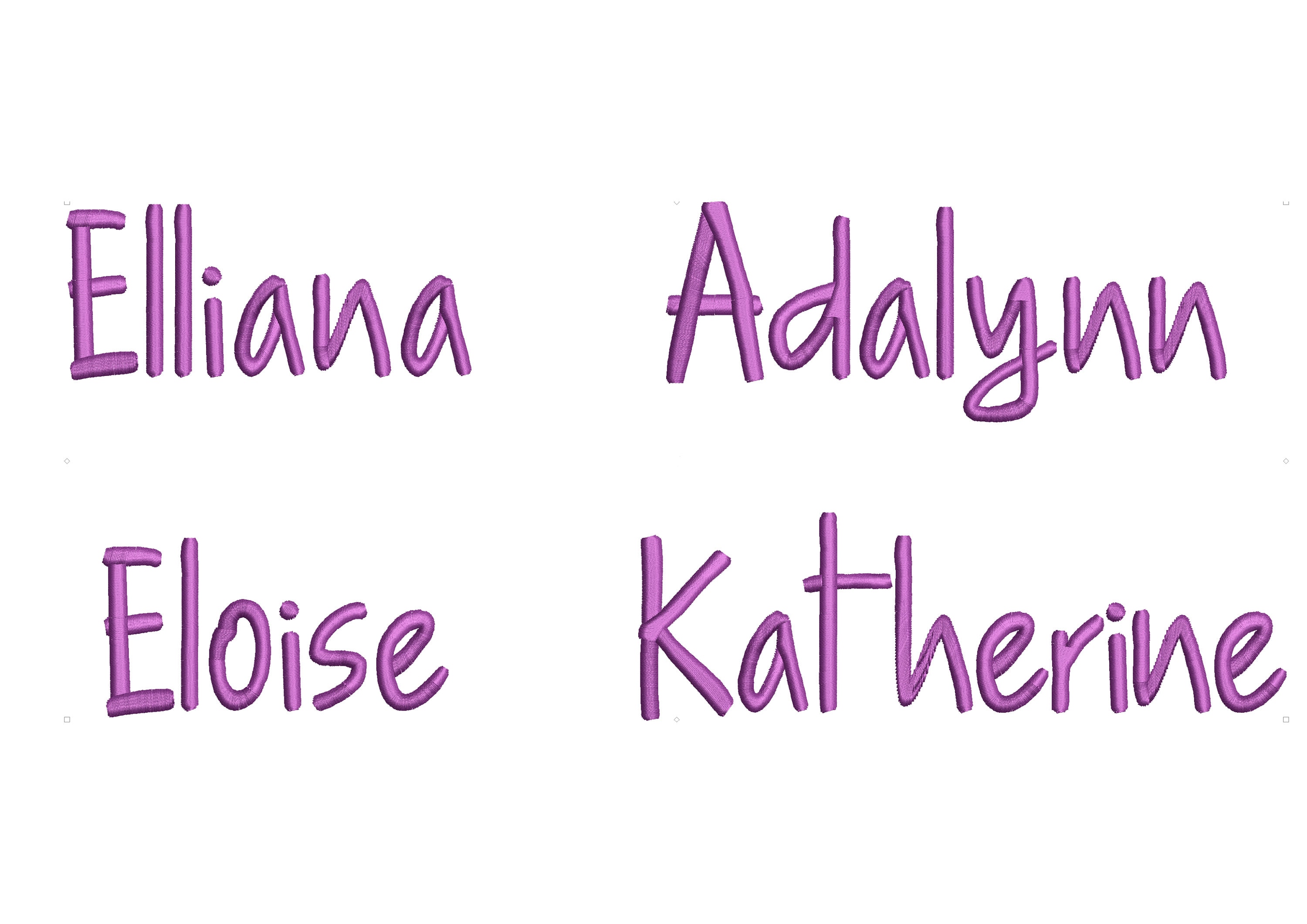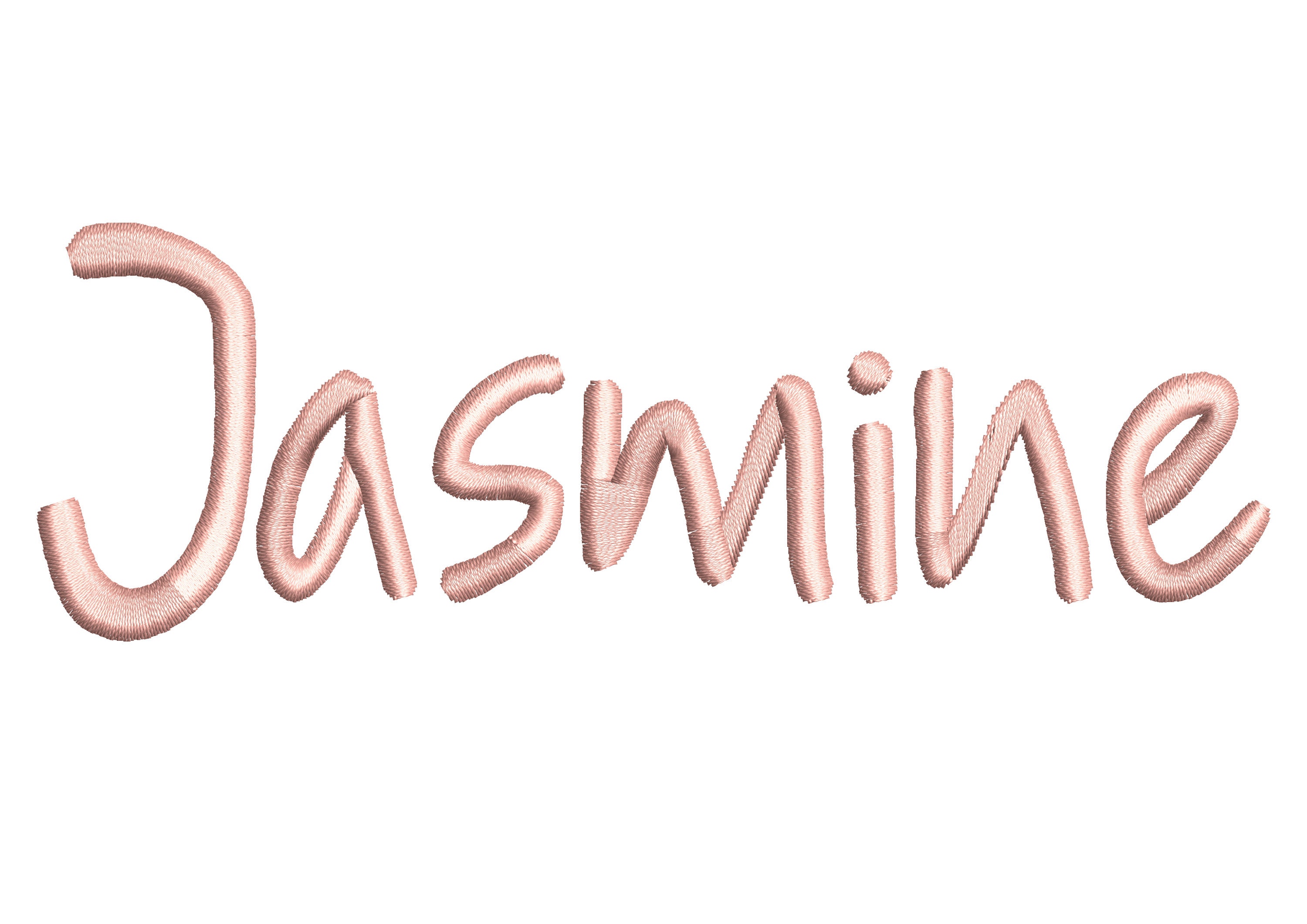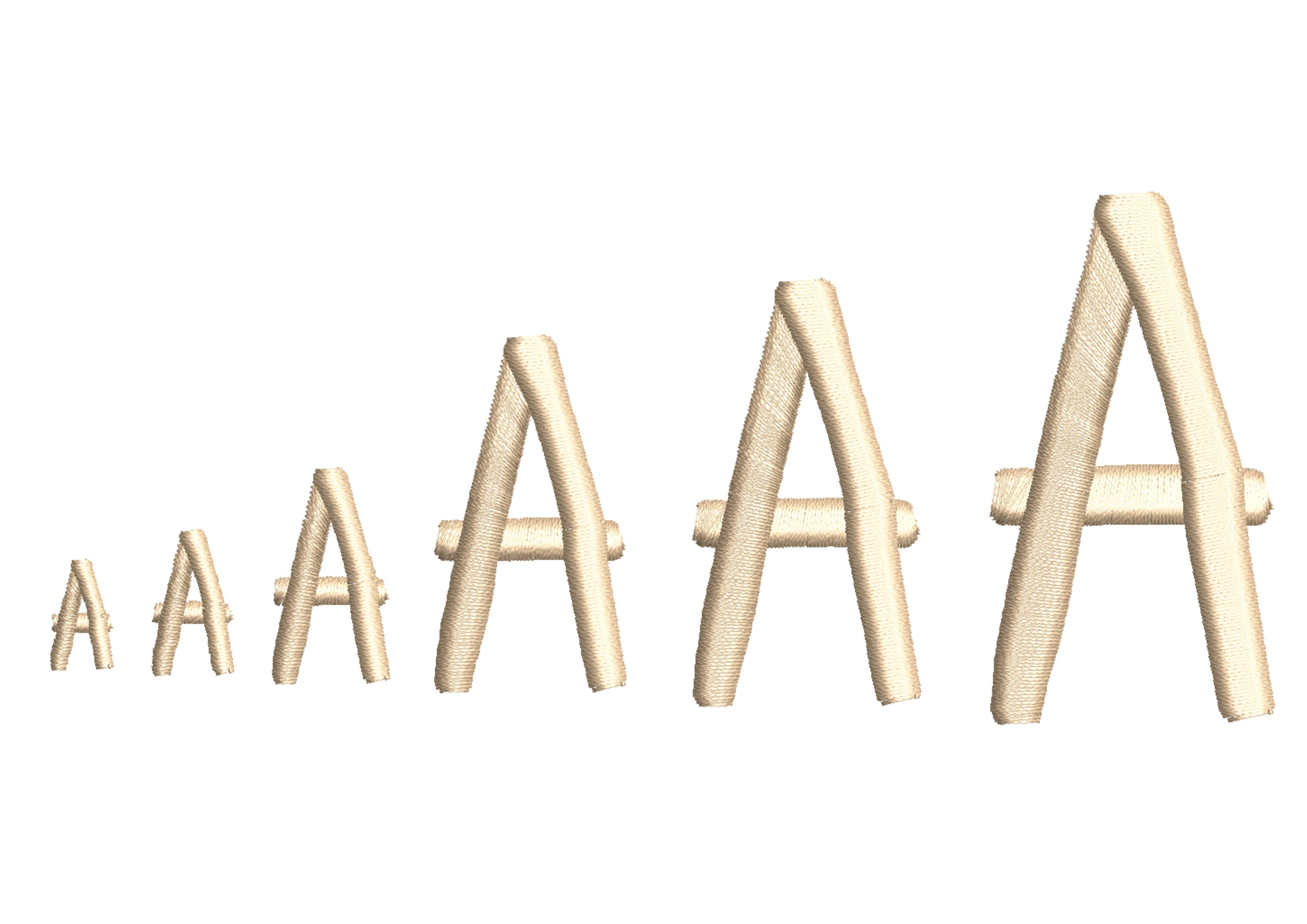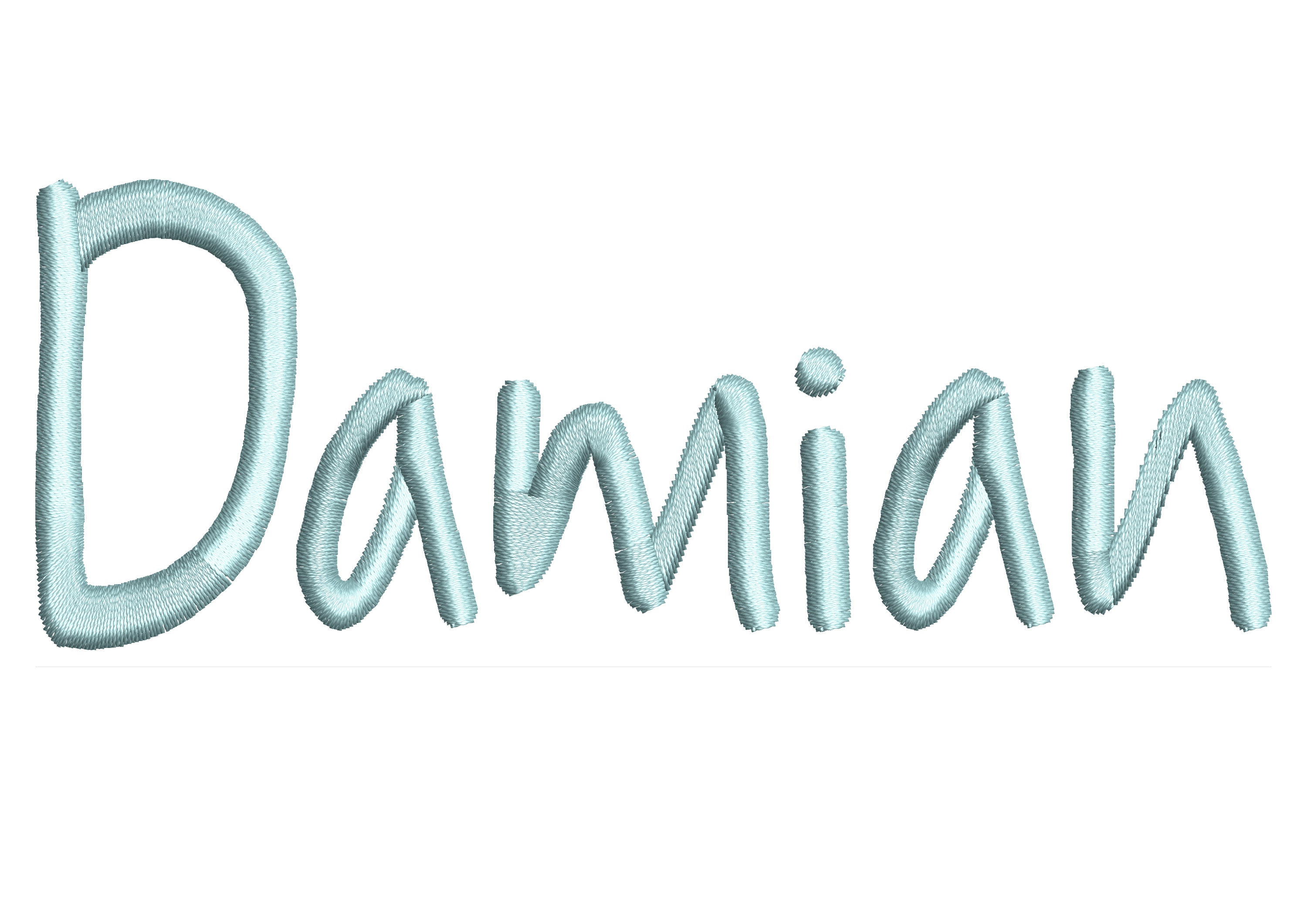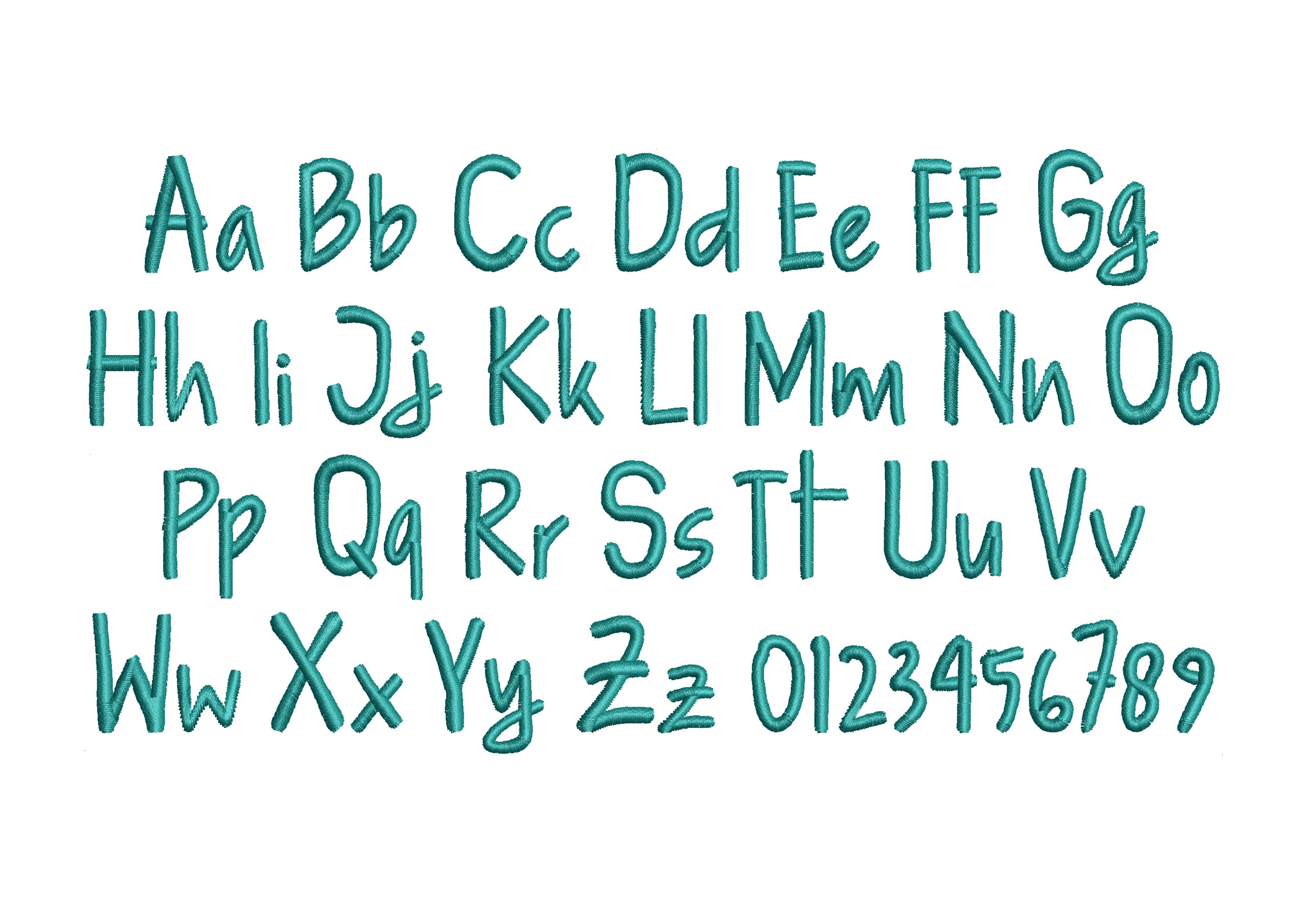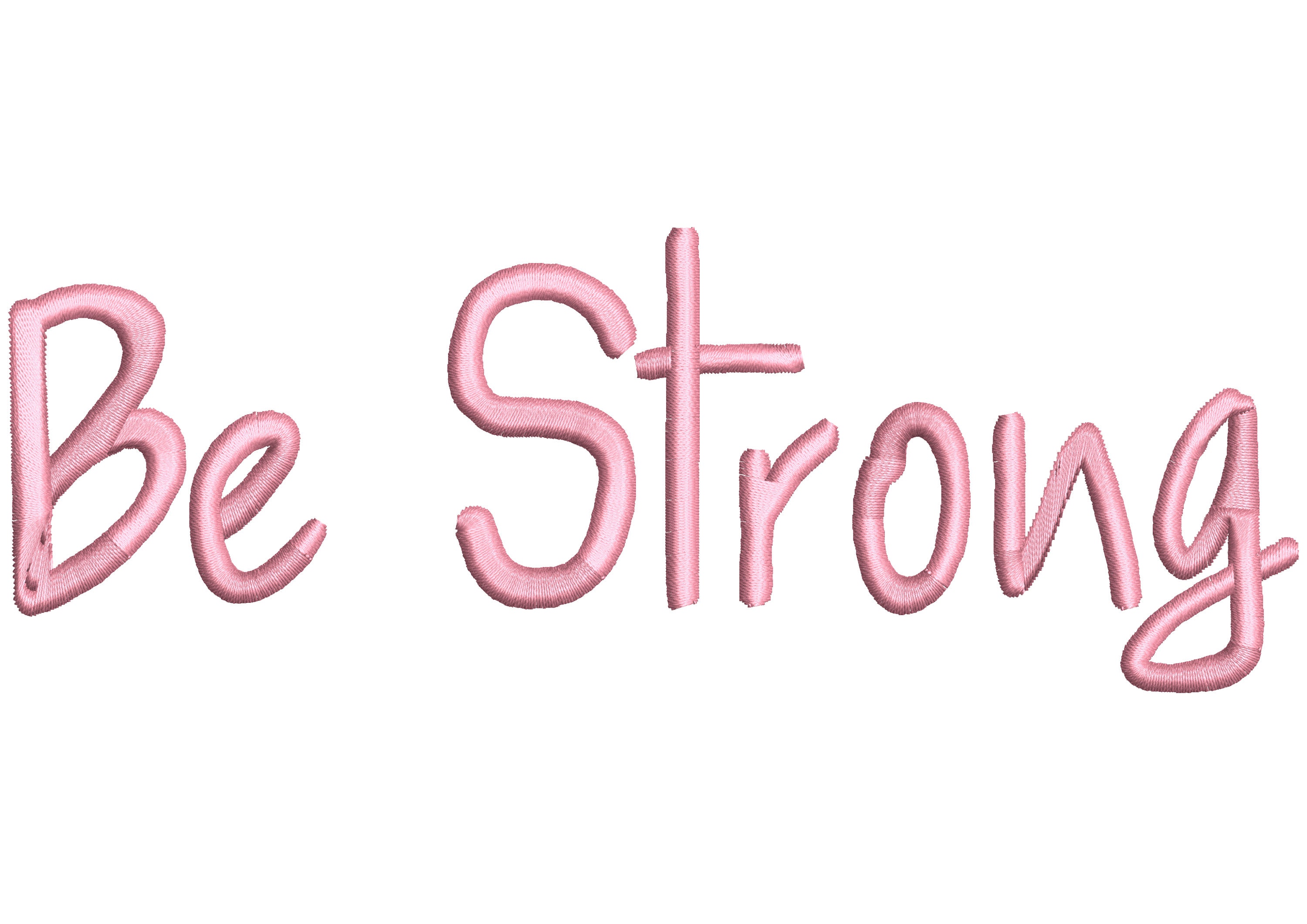
Christmas stocking satin stitch handwritten Font alphabet machine embroidery designs in mini sizes 0.4 thru 2.3 inches monogram name, BX
Uppercase and lowercase letters, and numbers.
0.4 "
0.6 "
1 "
1.5 "
1.8 "
2.3 "